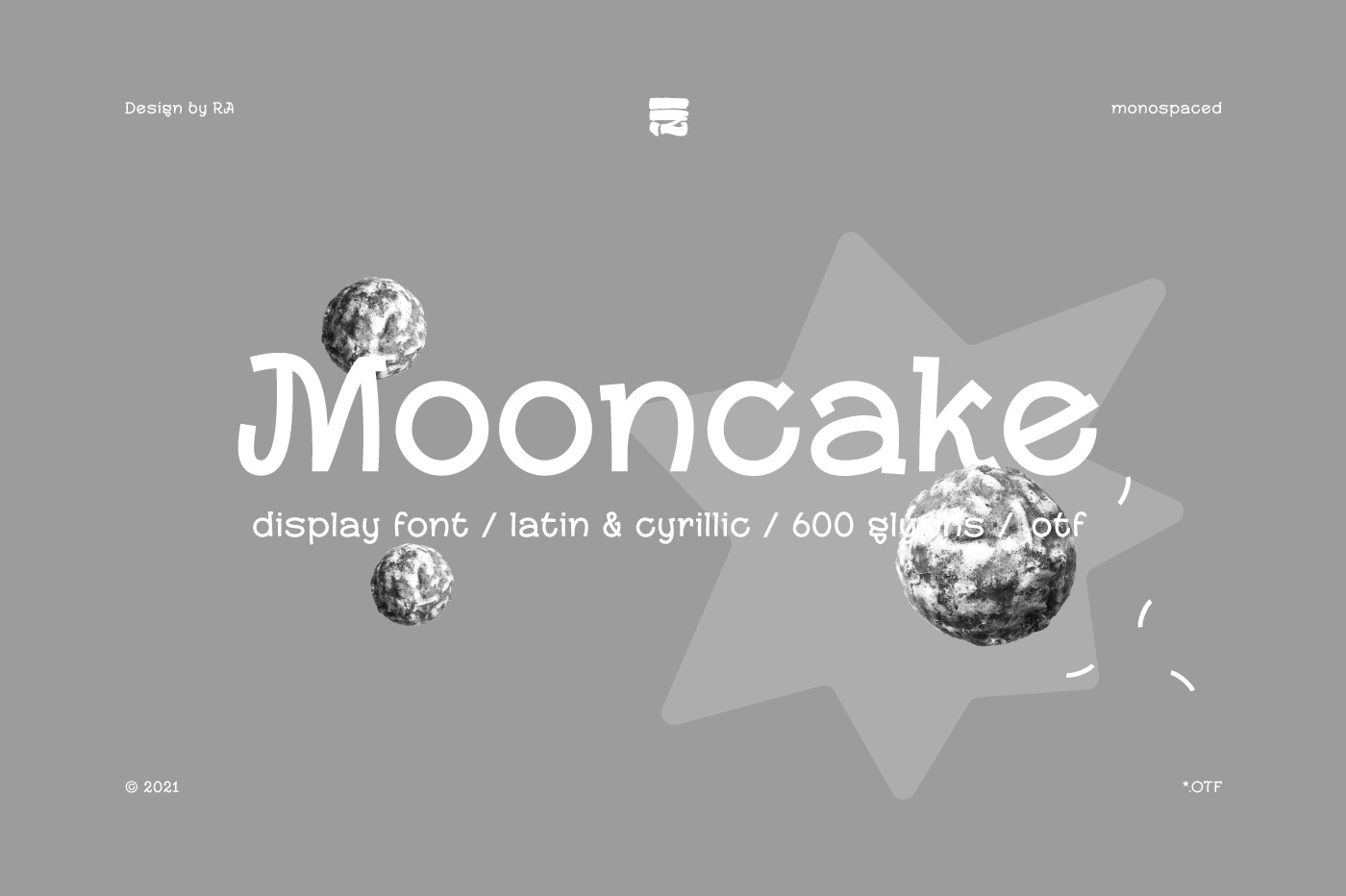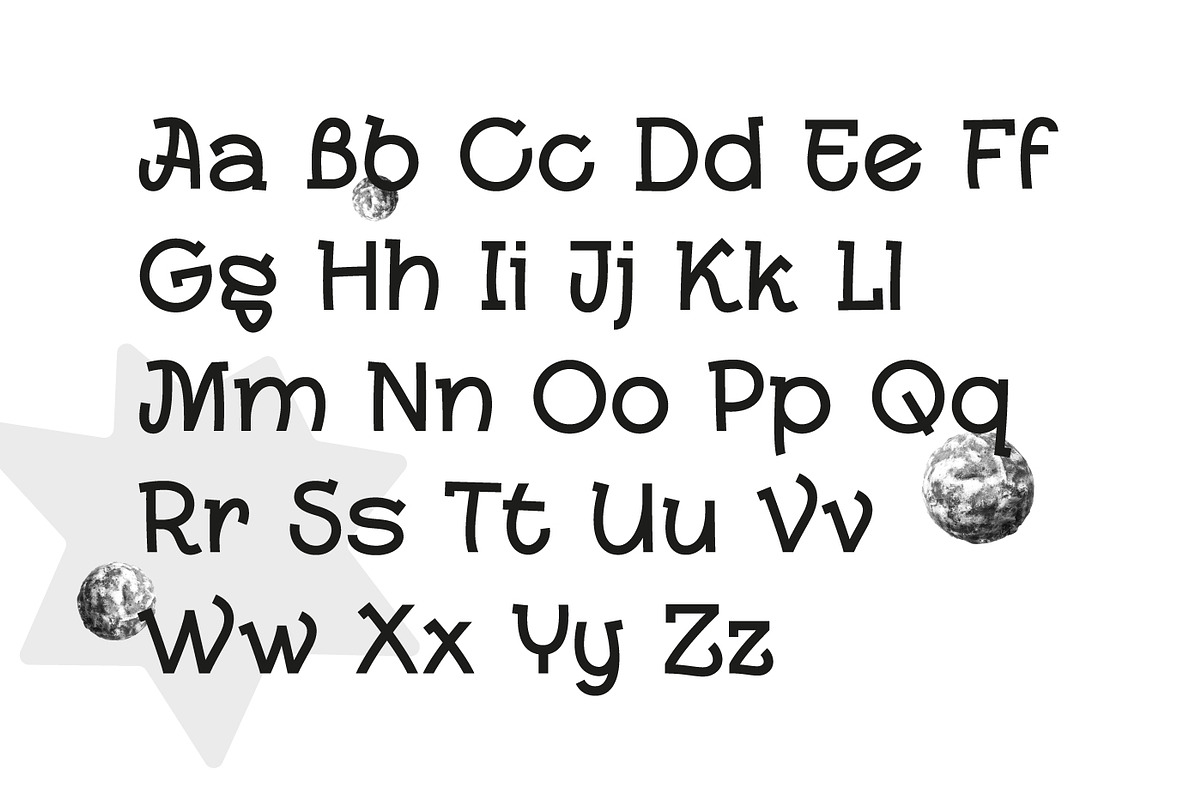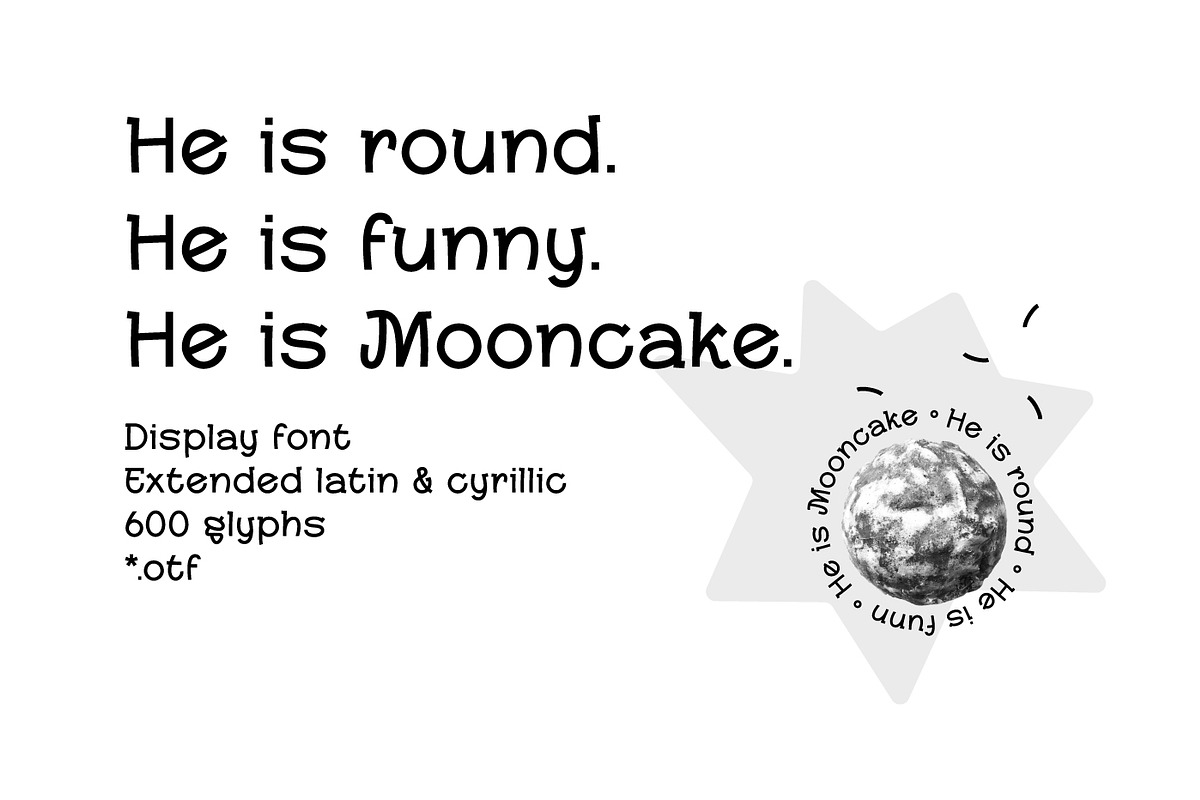
Mooncake - Display Font
He is round. He is funny. He is Mooncake font. It is perfect for eye-catching signs, posters, headers, product packaging, book cover, logotype, apparel design and etc.
- Display font
- Extended latin & cyrillic
- 600 glifs